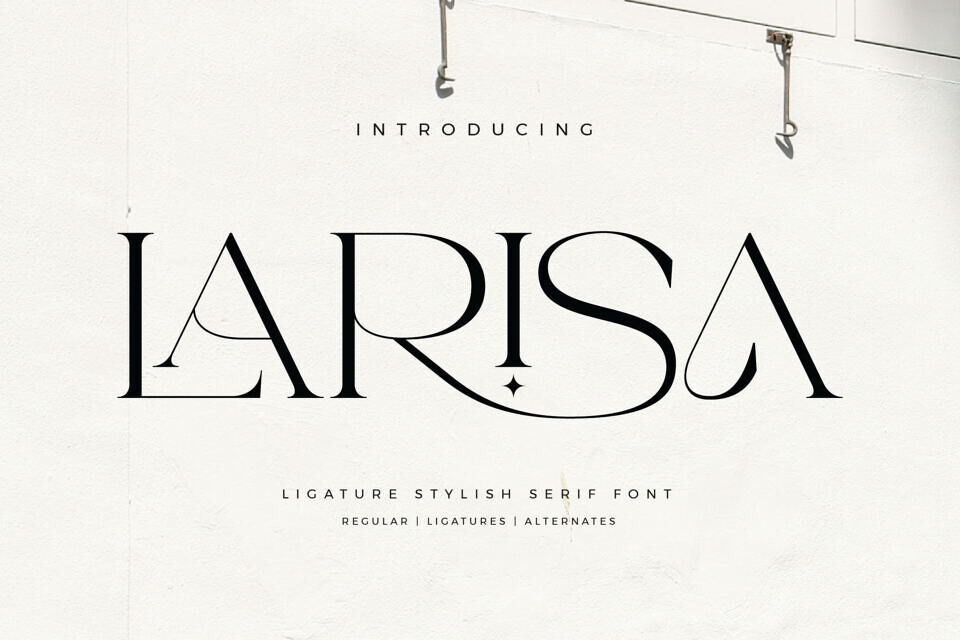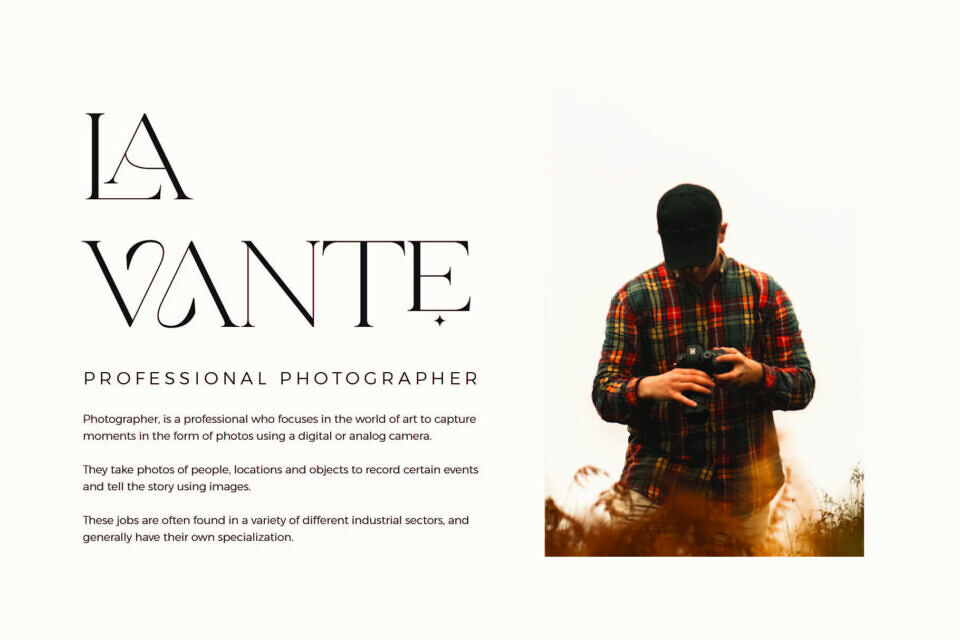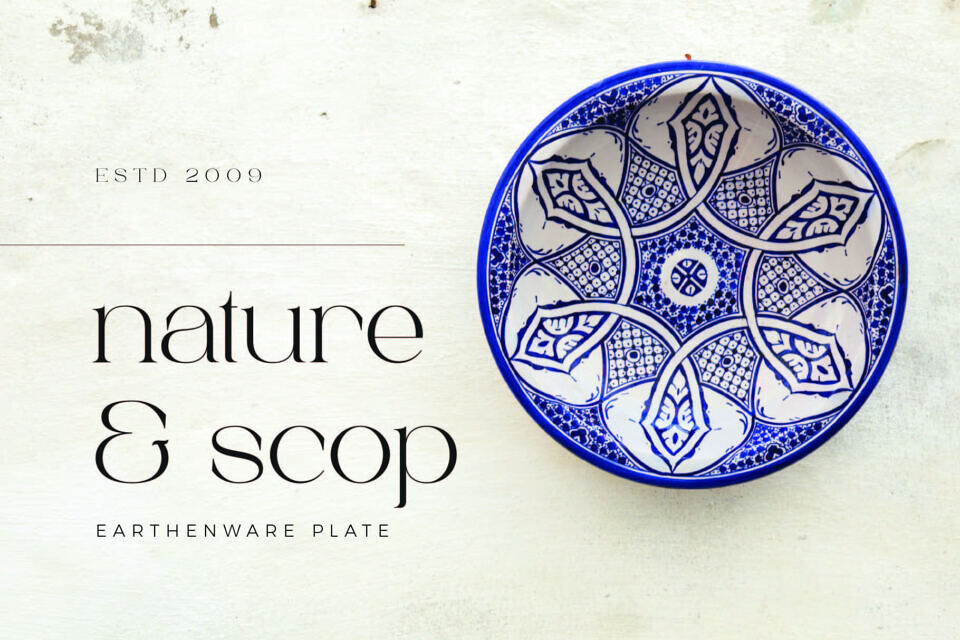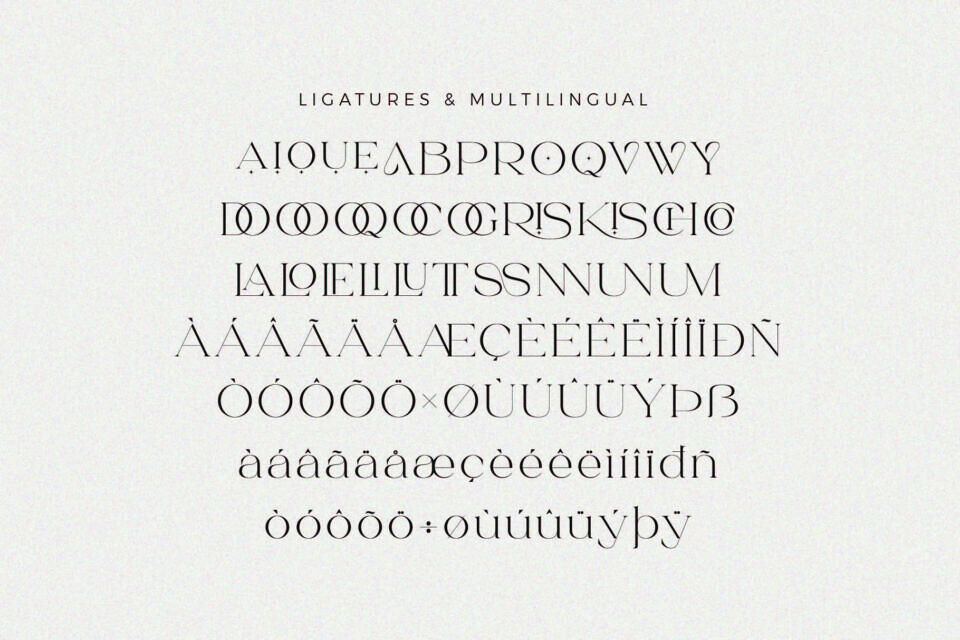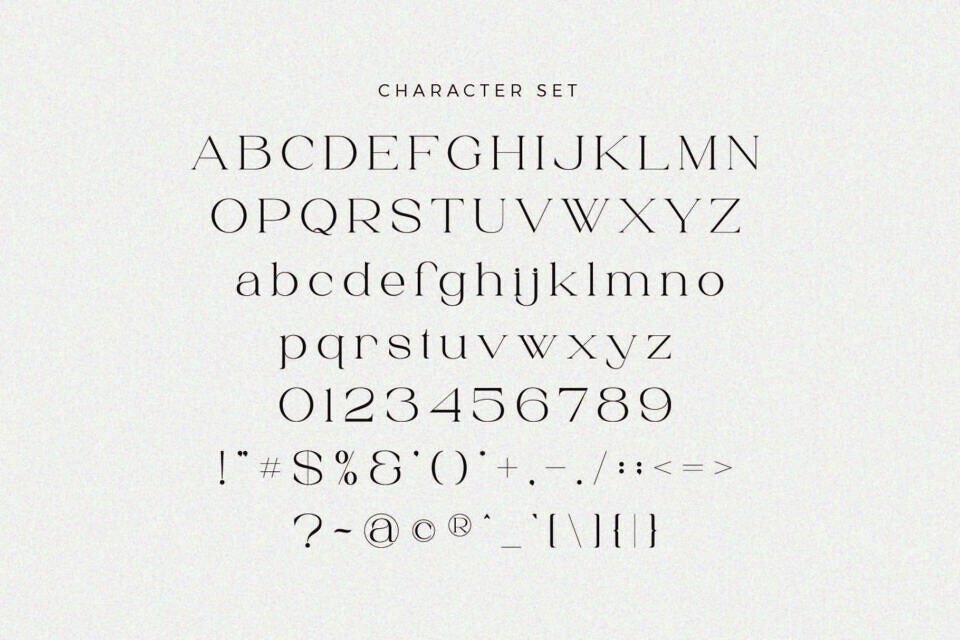
Larisa Font
Larisa is a chic, connected font inspired by a renowned minimalist logo. Its simplicity makes it ideal for various design projects, including template creation, brochure design, video production, and branding materials like logos and advertisements.